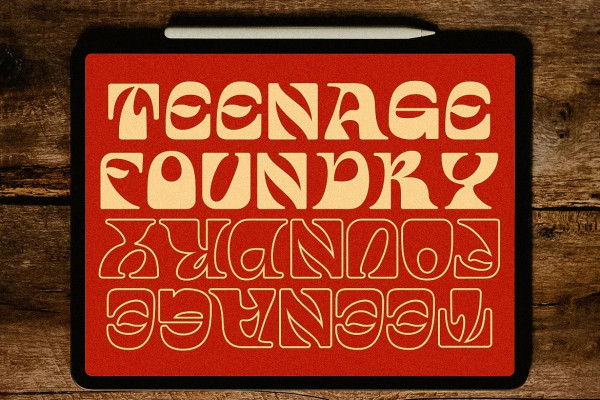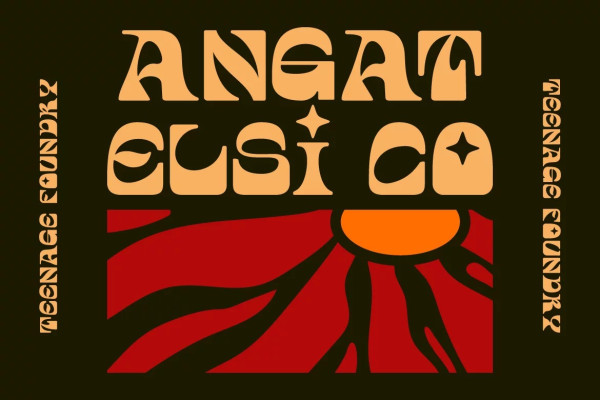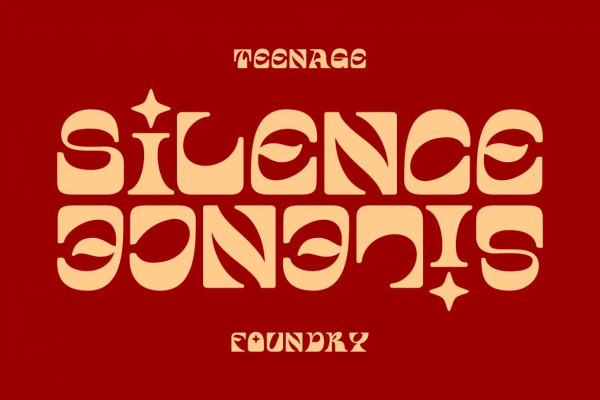
TF Silence Font
TF Silence Font, the awesome bold display font is back for your design projects. There are 2 styles available (Regular & Outline). Suitable to be applied to clothing designs, posters, logos etc.